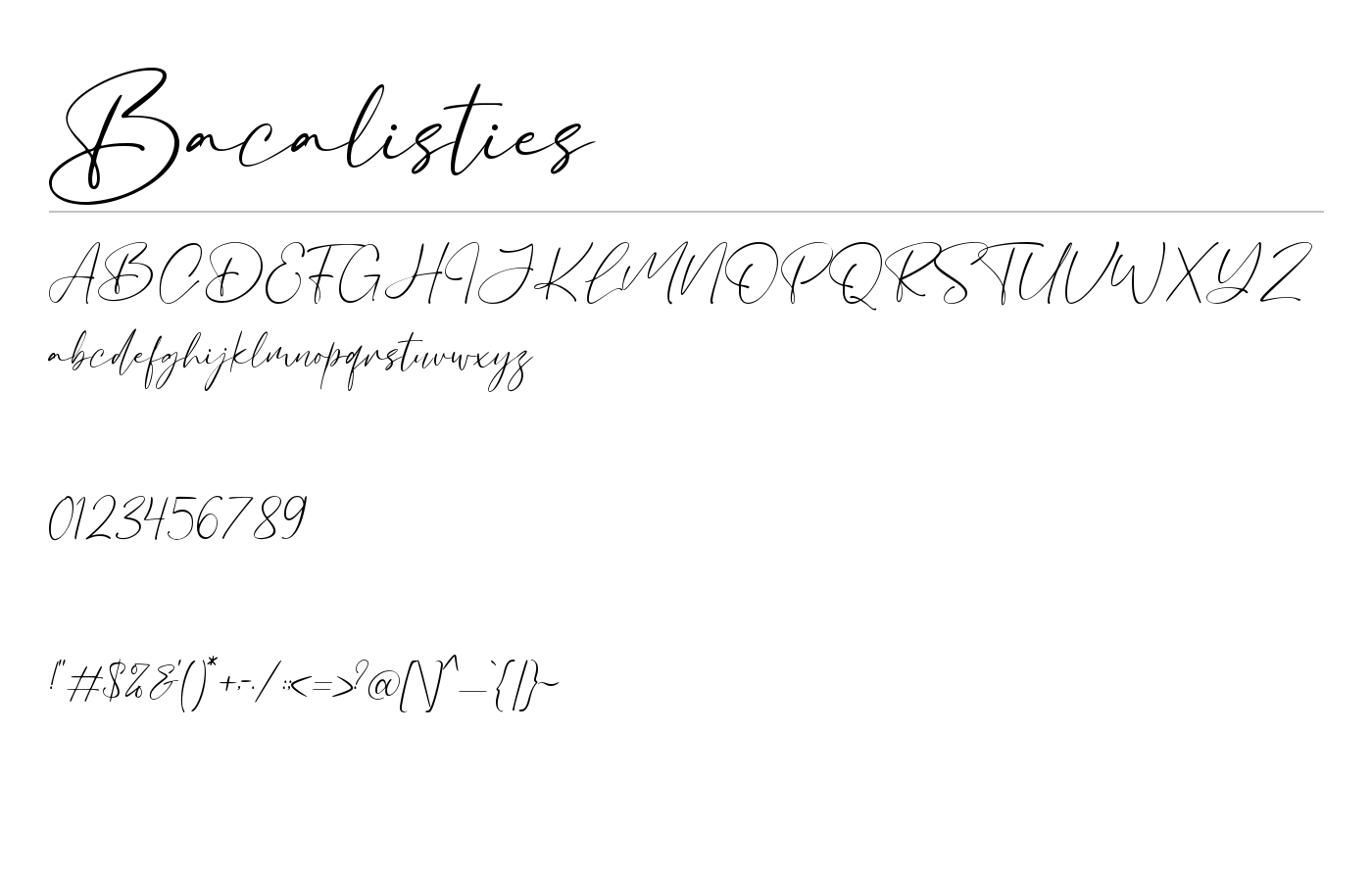
Bacalisties is a delicate, elegant script font characterized by its thin, flowing stroke and graceful, handwritten style. Its tall x-height and slender letterforms give it a modern, airy feel perfect for creating sophisticated branding, wedding invitations, and stylish editorial designs. This font’s refined charm works beautifully in decorative contexts where a touch of elegance and personality is desired.
Bacalisties Font
About Bacalisties Font
| Font family | Bacalisties Font |
| Designer | Muhammad Farhan Sholeh Ramadhika |
| Trademark | Abas Creative |